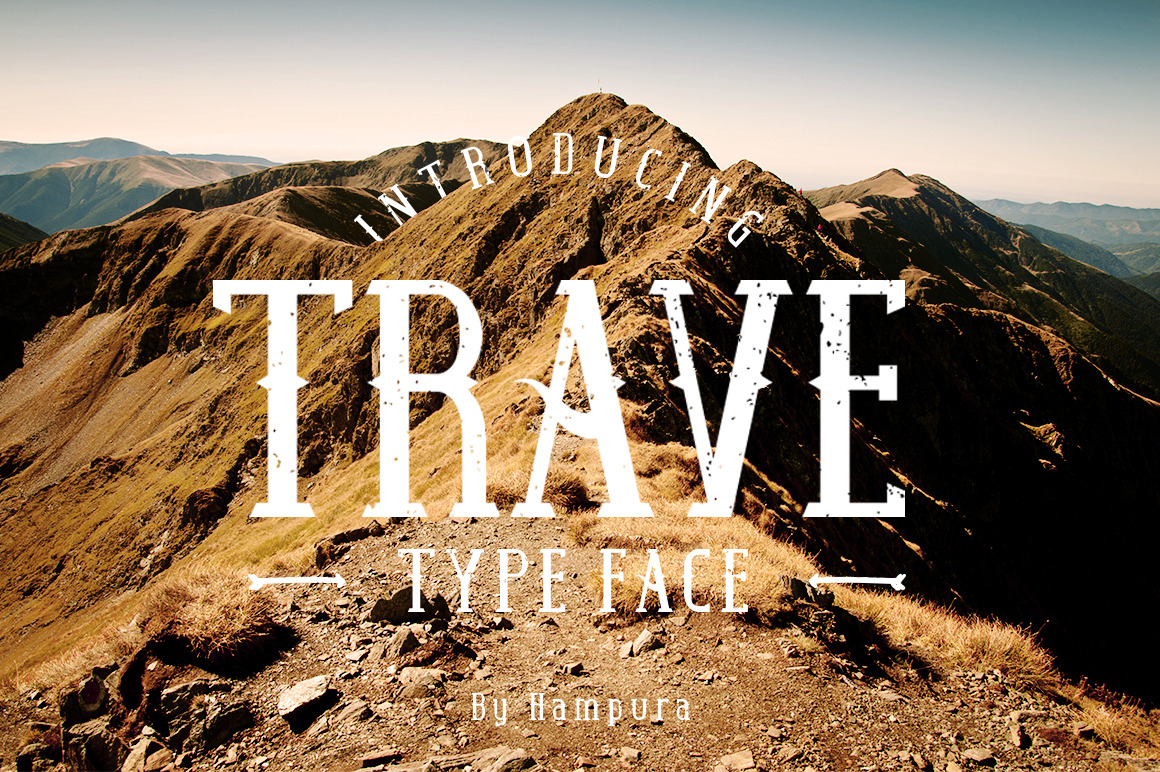
Trave Typeface
Introducing a new Trave Typeface font, Trave is a serif font, the font comes with uppercase and lowercase characters.
The typeface is suitable for logo, typography, t-shirts, logos, labels, poster, travelling, adventure, survival and etc.